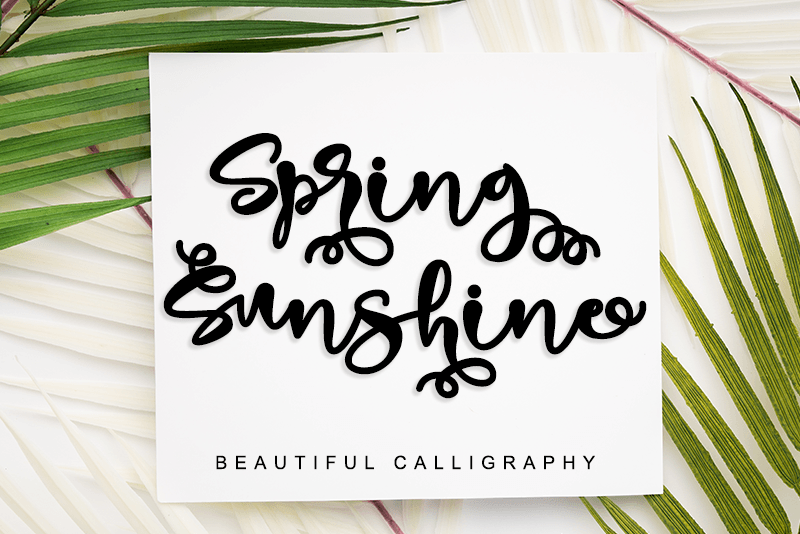
Spring Sunshine by Letterara
Spring Sunshine is a fun script font with a bit of weight. Would look great anytime you need something formal that doens't get lost on a background.